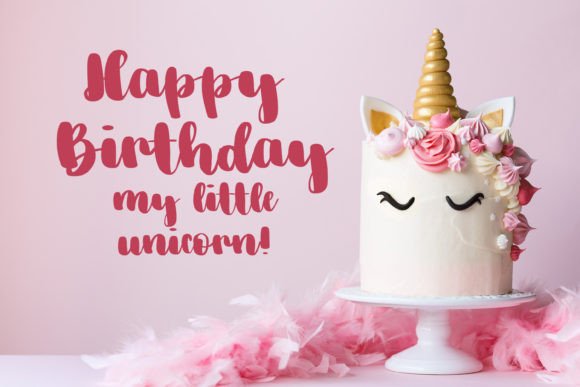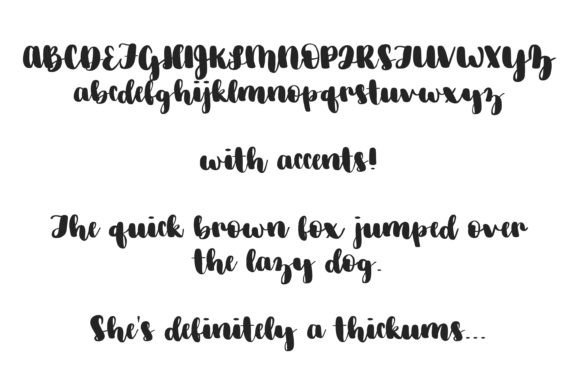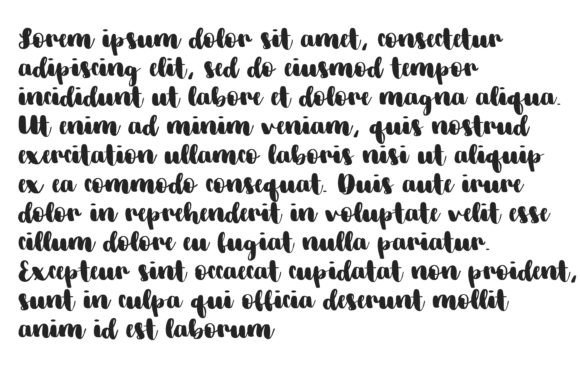
Thickums Font
About Thickums Font
Thickums is a cursive and sweet handwritten font! This font features thick downstrokes and light upstrokes, mimicking calligraphy techniques.